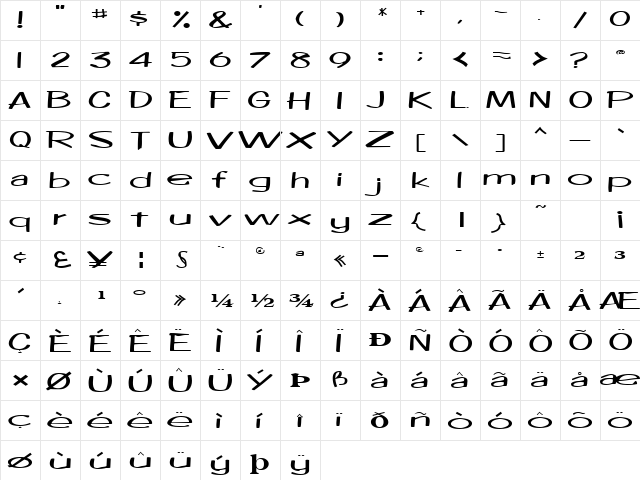
AlexOne83 Regular
Design Context for AlexOne83 Typeface
AlexOne83 offers clean, dependable letterforms without strong stylistic allegiance, making it a practical choice for designers who need flexibility.